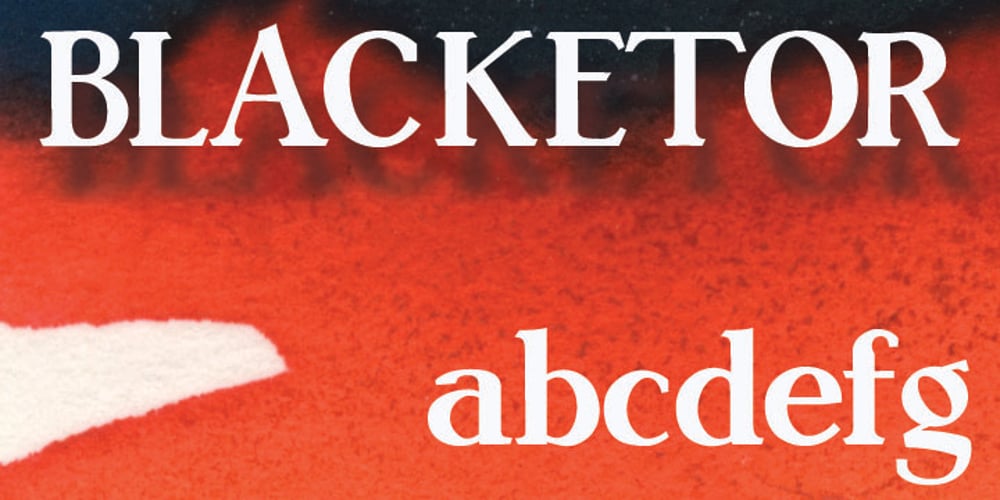
Blacketor
Blacketor font
Blacketor Font Family was designed by Courtney Rhodes and published by Courtney Rhodes. Blacketor contains 1 styles and family package options. Blacketor came about from hand lettering I had done for my own personal use several years ago. It remained unfinished until now. I was going for a more traditional serif font but in the process of play various versions came about while playing with the serifs, in an attempt to be slightly different. Many versions fell to the wayside as I learned more about what didn’t work than what did. What came about was a clean font with large open counters and short ascenders for an easy read. All caps works well for a bold but not shouty statement. A good font for Headlines and callouts as well as logotypes.